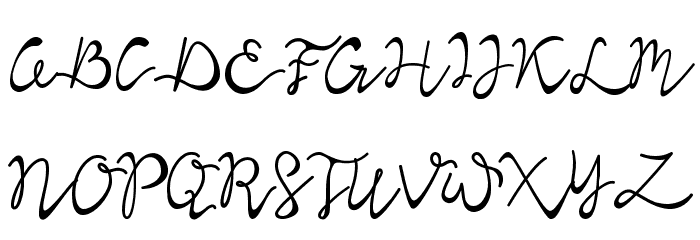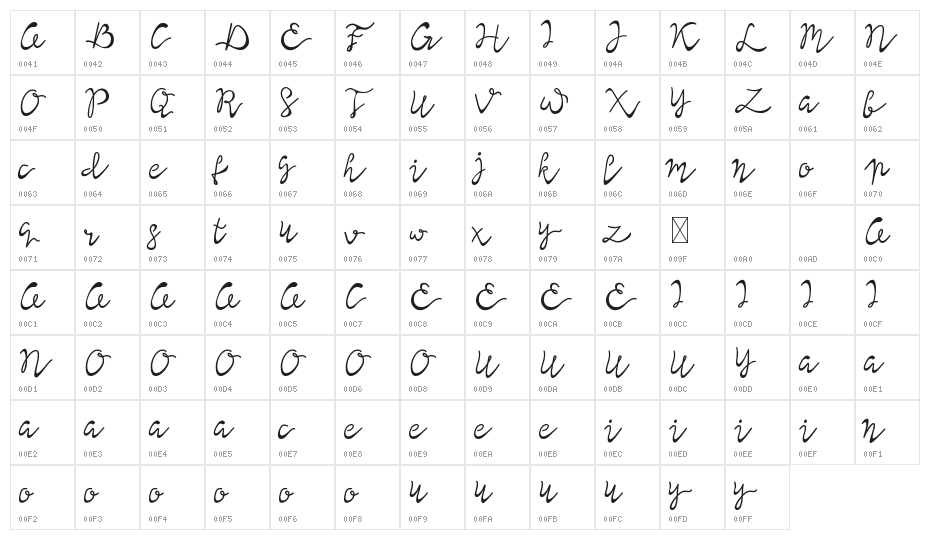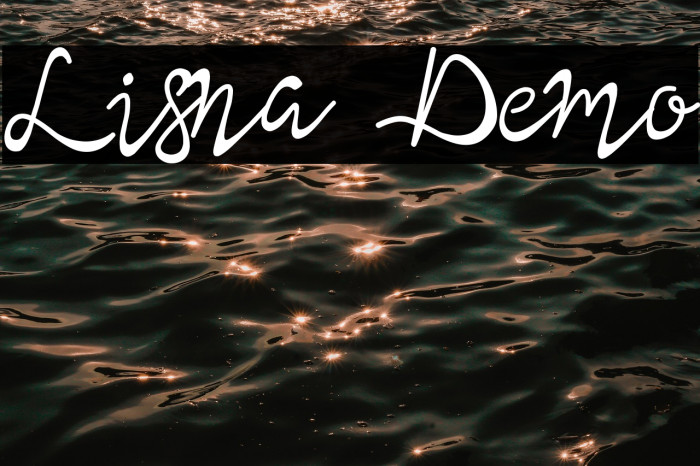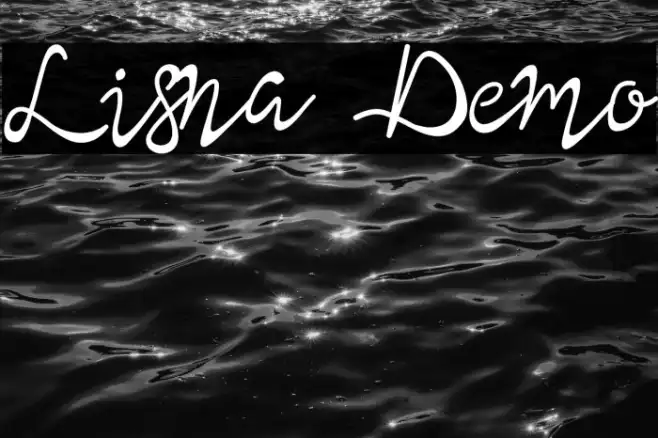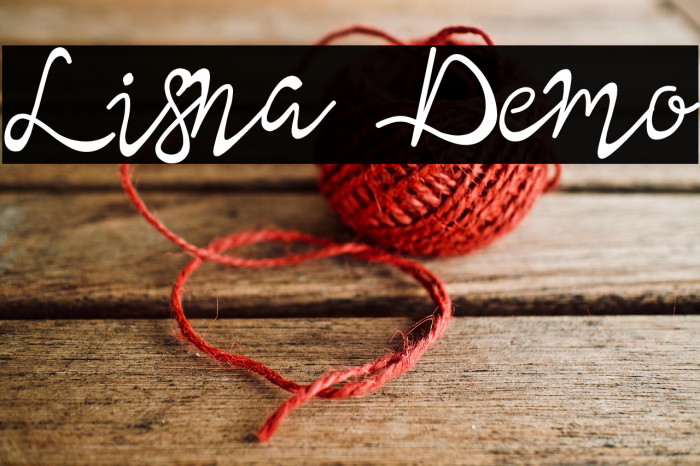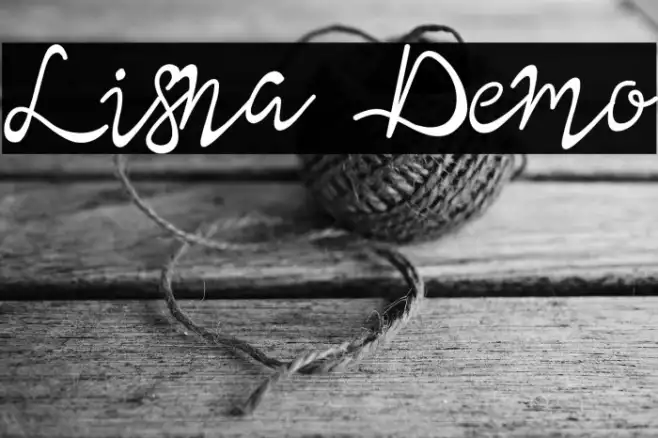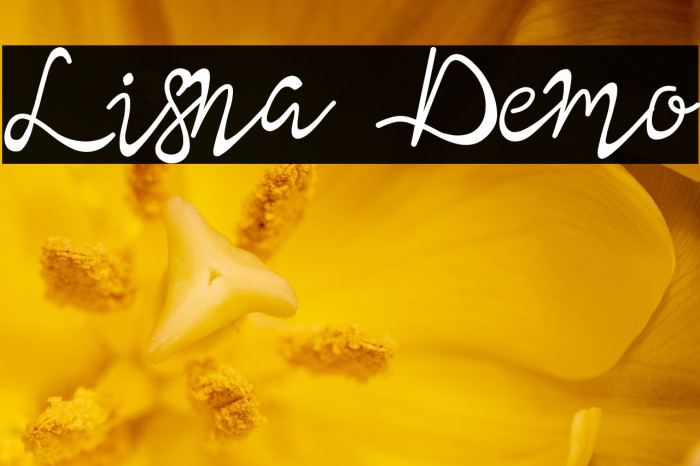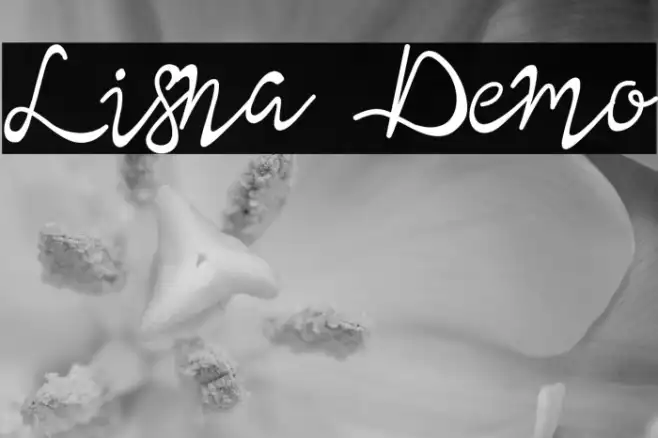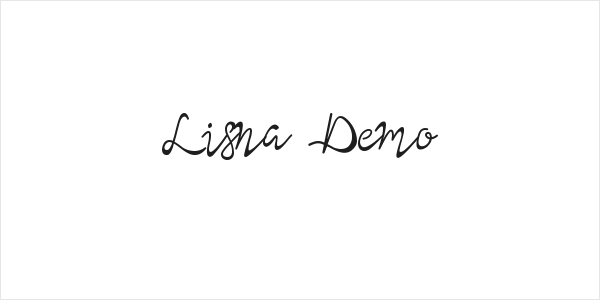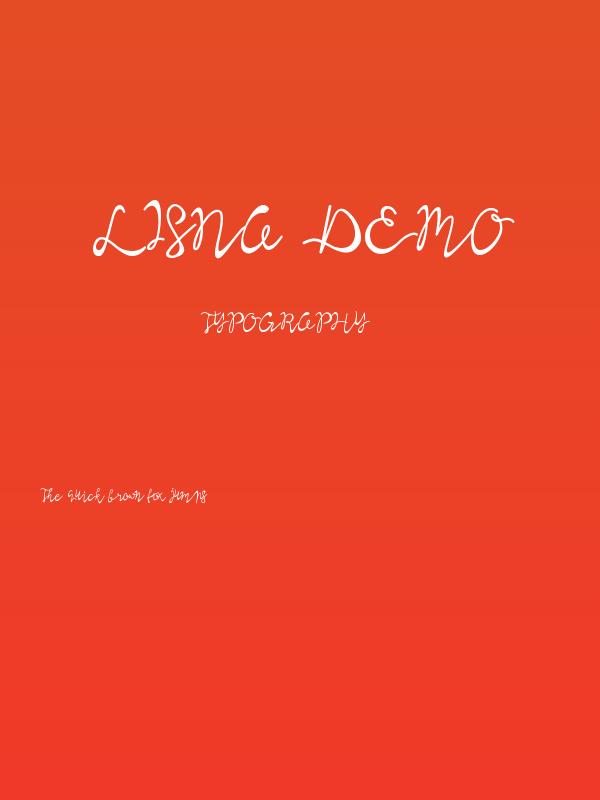
Lisna Demo Font
Lisna Demo Description
This font features a playful and elegant cursive style, characterized by its flowing and interconnected letterforms. The strokes are smooth and exhibit a sense of movement, giving it a lively and dynamic appearance. The uppercase letters are distinct yet harmoniously blend with the lowercase, maintaining a consistent rhythm throughout. The font's design is both artistic and readable, making it suitable for creative and expressive projects. Its unique style is perfect for adding a personal touch to any design.
Overall StyleDecorative
Use CaseLogos, Invitations, Artistic projects
Proposed ProjectsIdeal for wedding invitations, greeting cards, personal branding, and artistic projects.